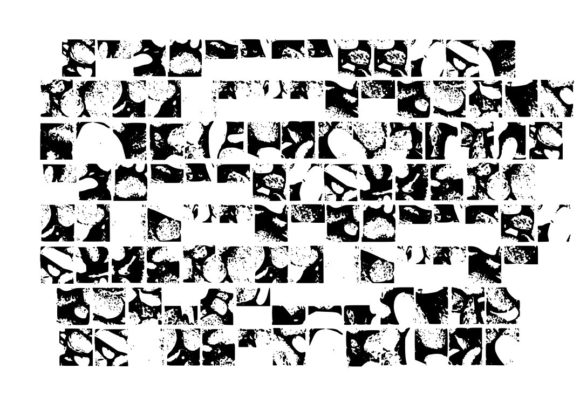
ABOUT PEBBLE STONE GLYPHS FONT
“Pebble Stone Glyphs” is an extensive collection of glyphs that showcases a wide variety of small and large stones with rocky textures. This pack is specifically designed to add a natural and organic element to your design or craft projects.
With its realistic and detailed rocky textures, “Pebble Stone Glyphs” offers a range of options for incorporating the charm of pebble stones into your creative endeavors. Whether you’re working on graphic designs, illustrations, or any other visual medium, these glyphs can bring a unique and tactile touch to your work.
The pebble stone textures in “Pebble Stone Glyphs” can evoke a sense of tranquility, nature, and grounding. They are perfect for creating backgrounds, adding texture to artwork, or enhancing the visual appeal of your designs. Whether you’re aiming for a natural theme, a rustic aesthetic, or want to add a touch of earthy elegance, this pack provides a valuable resource.
Unleash your creativity and explore the possibilities with “Pebble Stone Glyphs.” Experiment with different sizes and arrangements to achieve the desired look for your projects. Let the rocky textures of pebble stones bring a distinct and captivating element to your designs, making them truly stand out.
Whether you’re working on digital artwork, posters, packaging, or any craft project that calls for a natural and tactile feel, “Pebble Stone Glyphs” is here to enhance your creative process and elevate your designs. Embrace the beauty of pebble stones and let them inspire your imagination as you create stunning and authentic compositions.